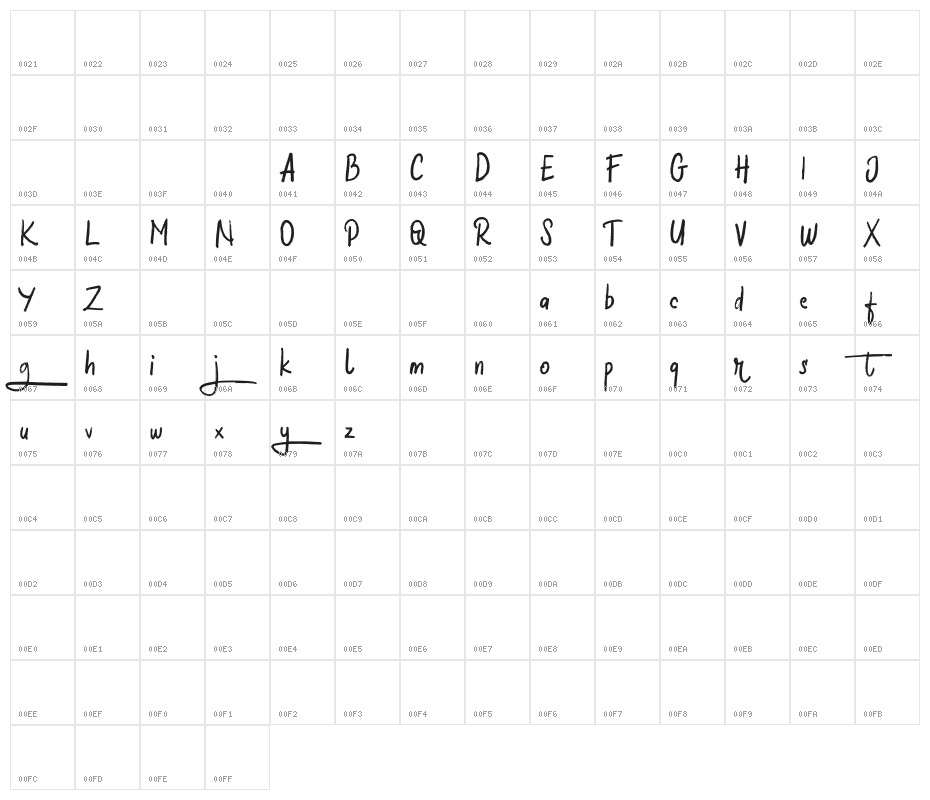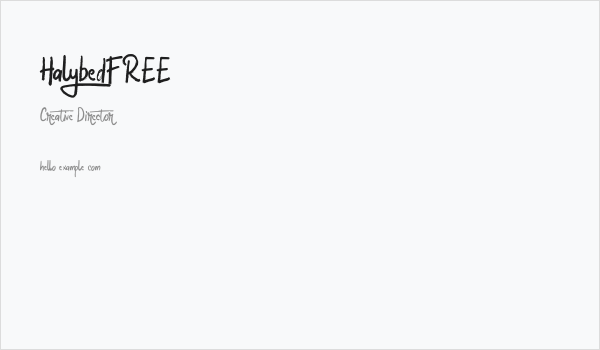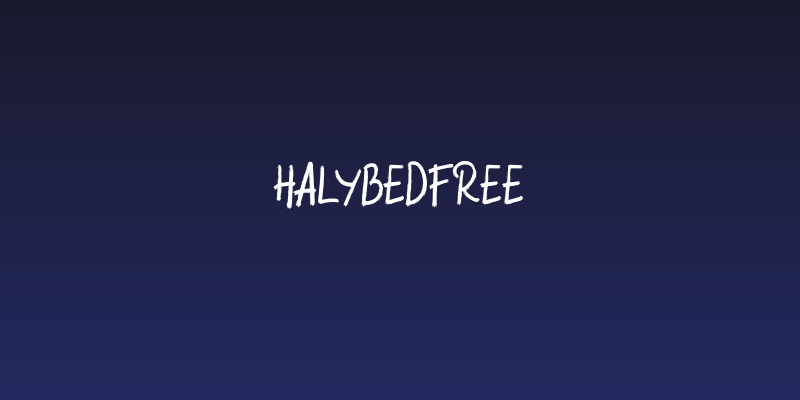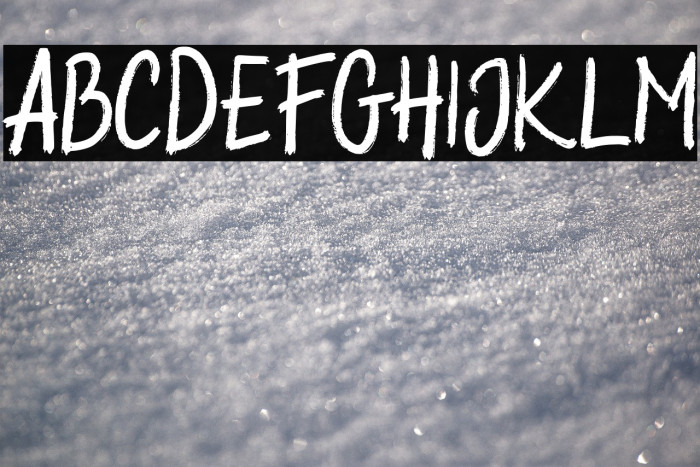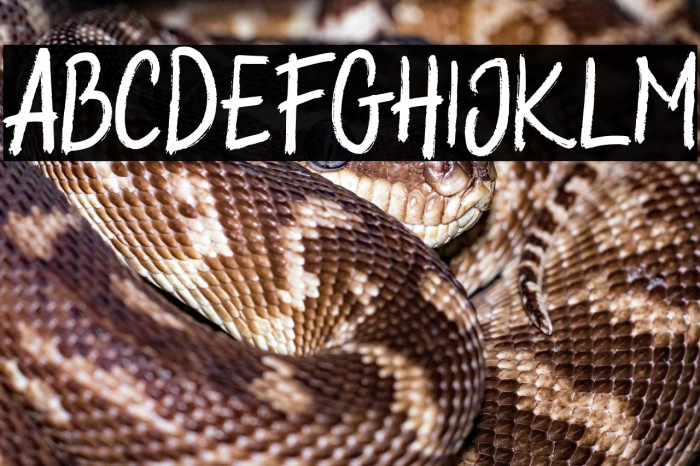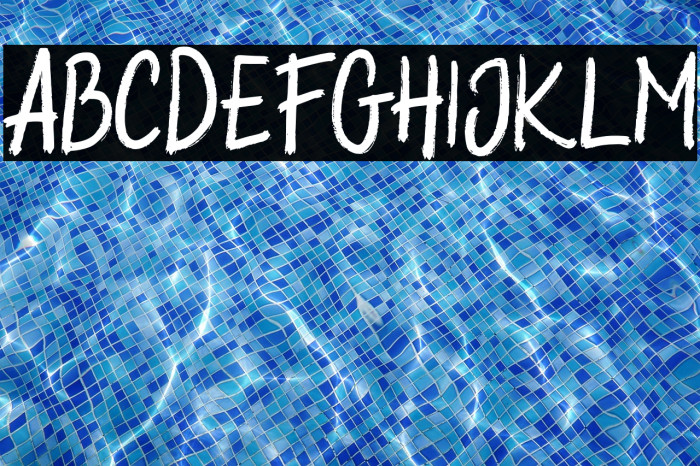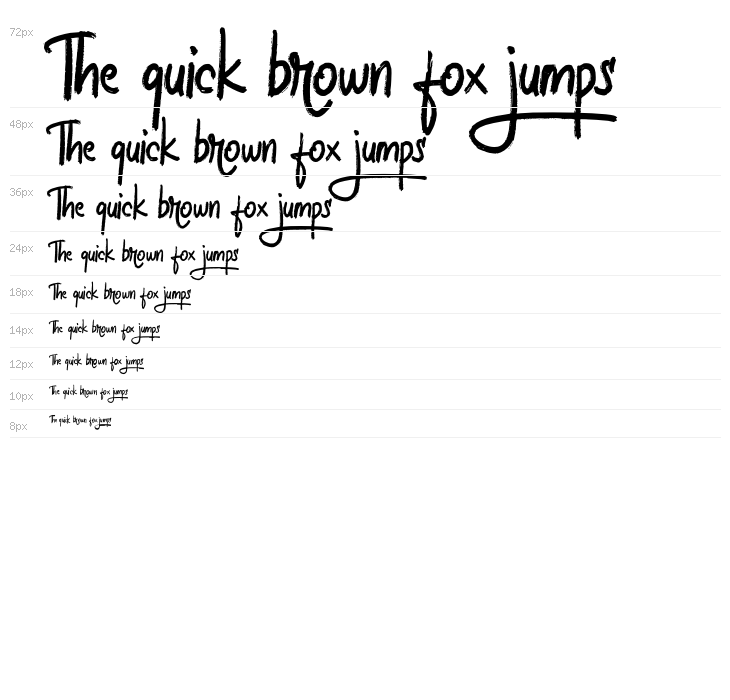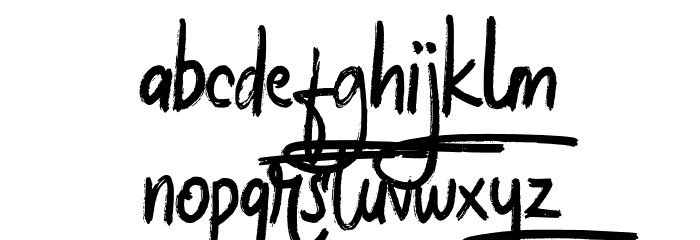
HalybedFREE Font
HalybedFREE Description
This font features a bold, expressive handwritten style with a playful and energetic feel. The letters have a brush-like texture, giving them a dynamic and artistic appearance. The uppercase characters are tall and slightly irregular, adding a sense of spontaneity and creativity. The lowercase letters maintain the same lively quality, with some characters extending below the baseline, enhancing the font's casual and informal vibe. The numbers and special characters are consistent with this style, making the font versatile for various creative projects. Overall, it exudes a sense of freedom and artistic flair, perfect for projects that require a personal touch.